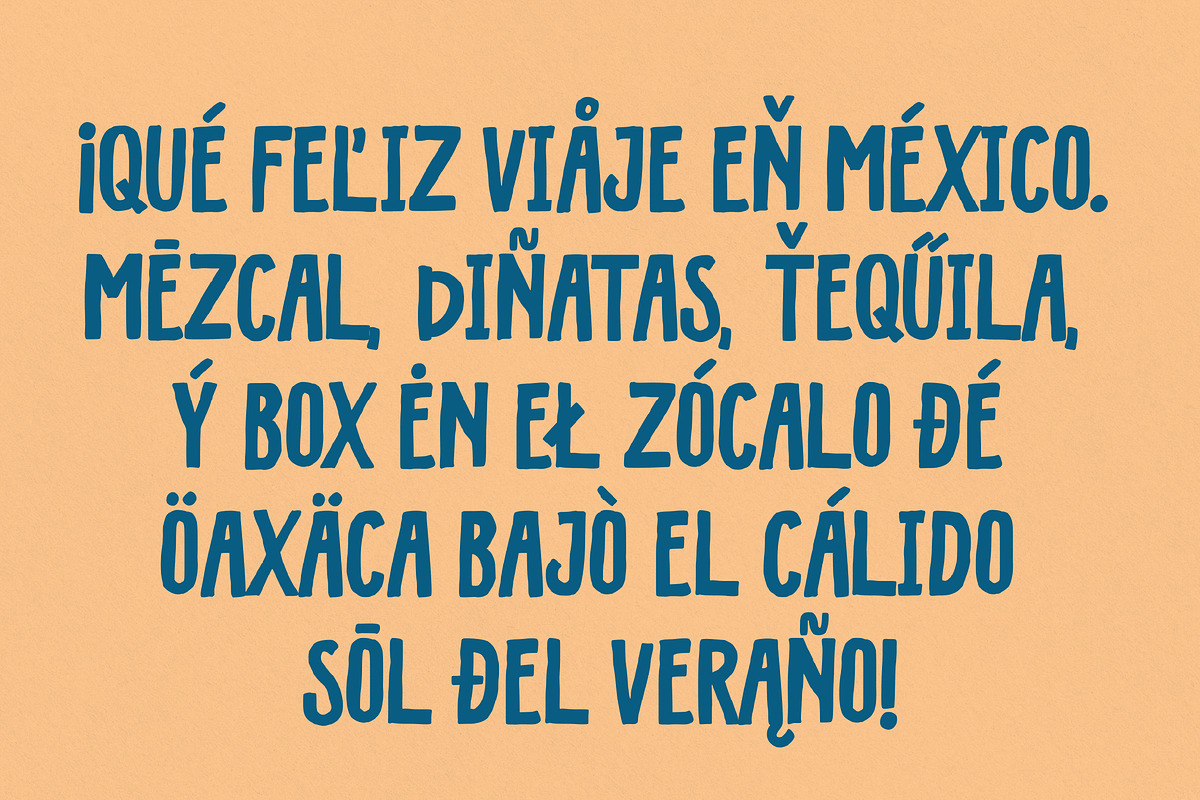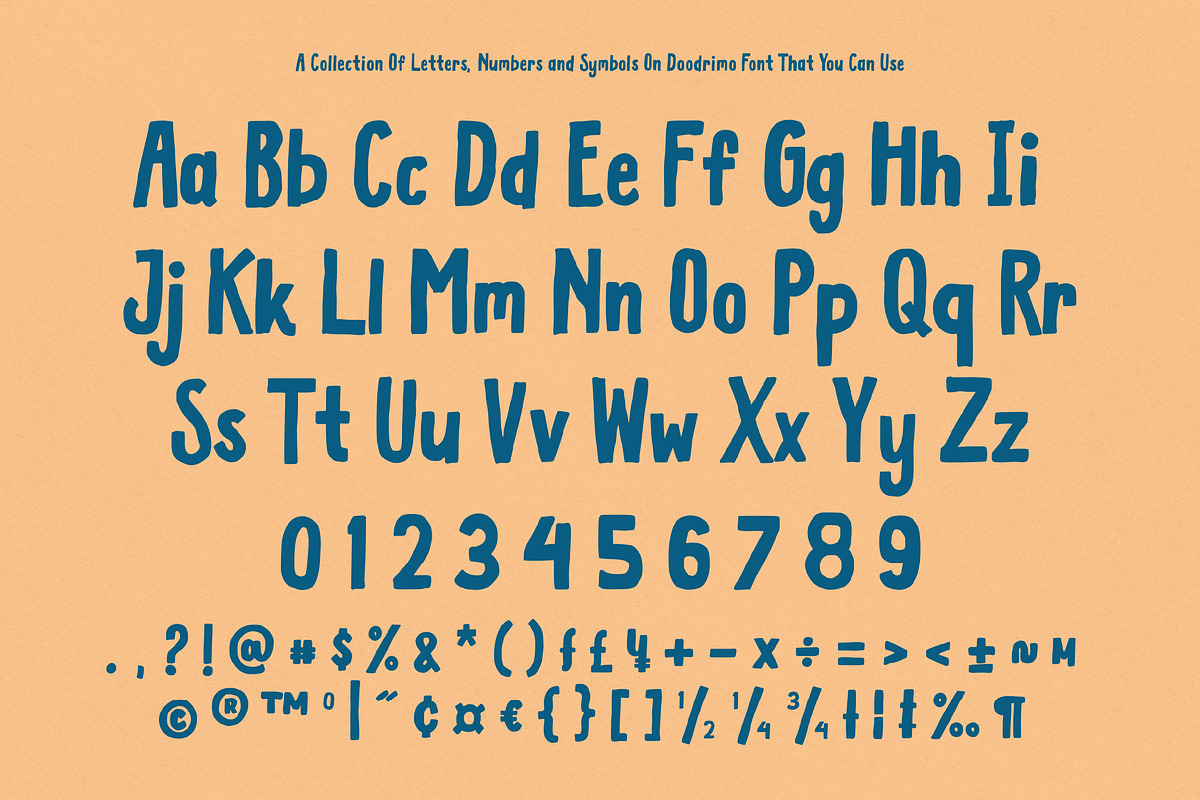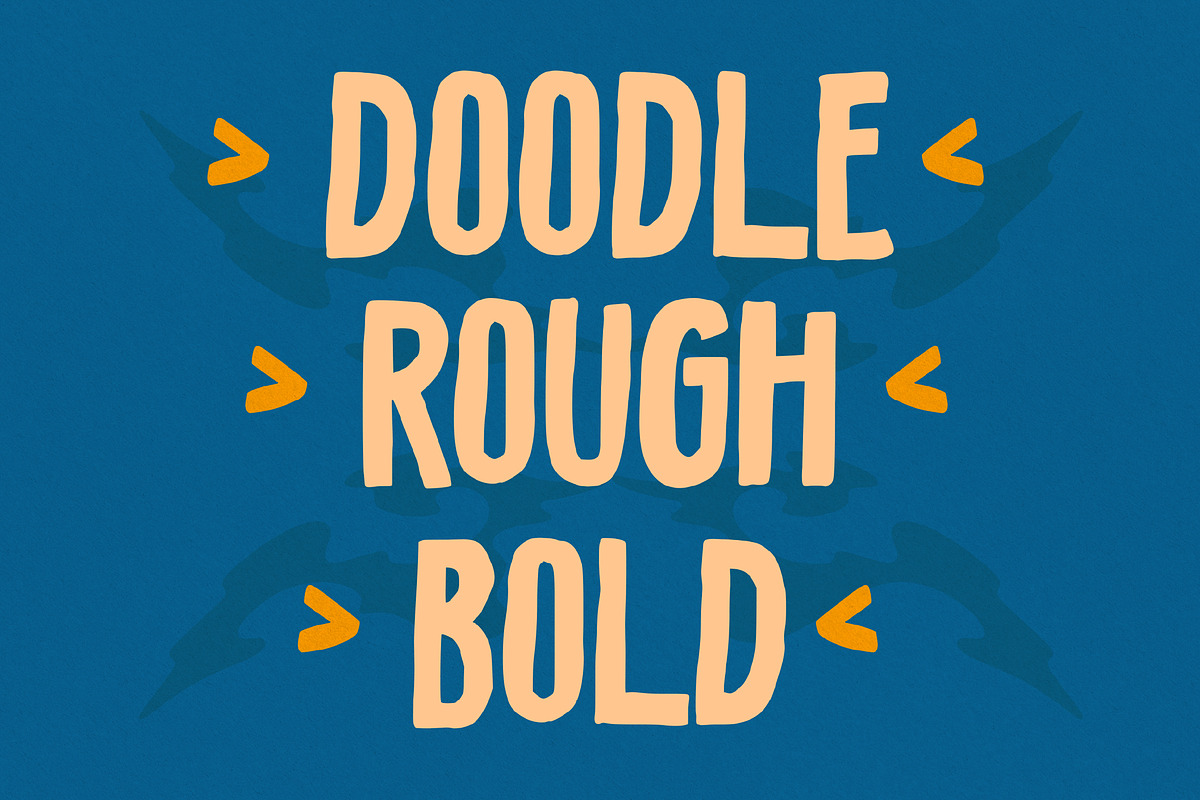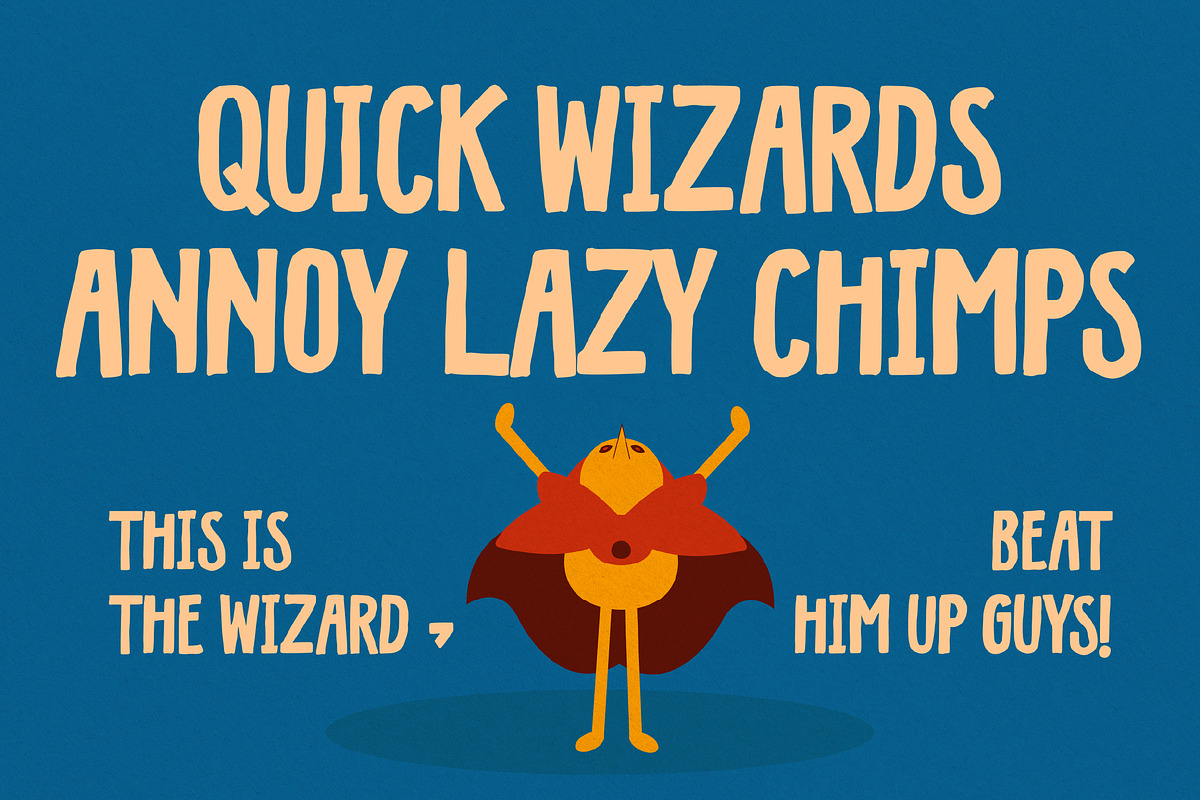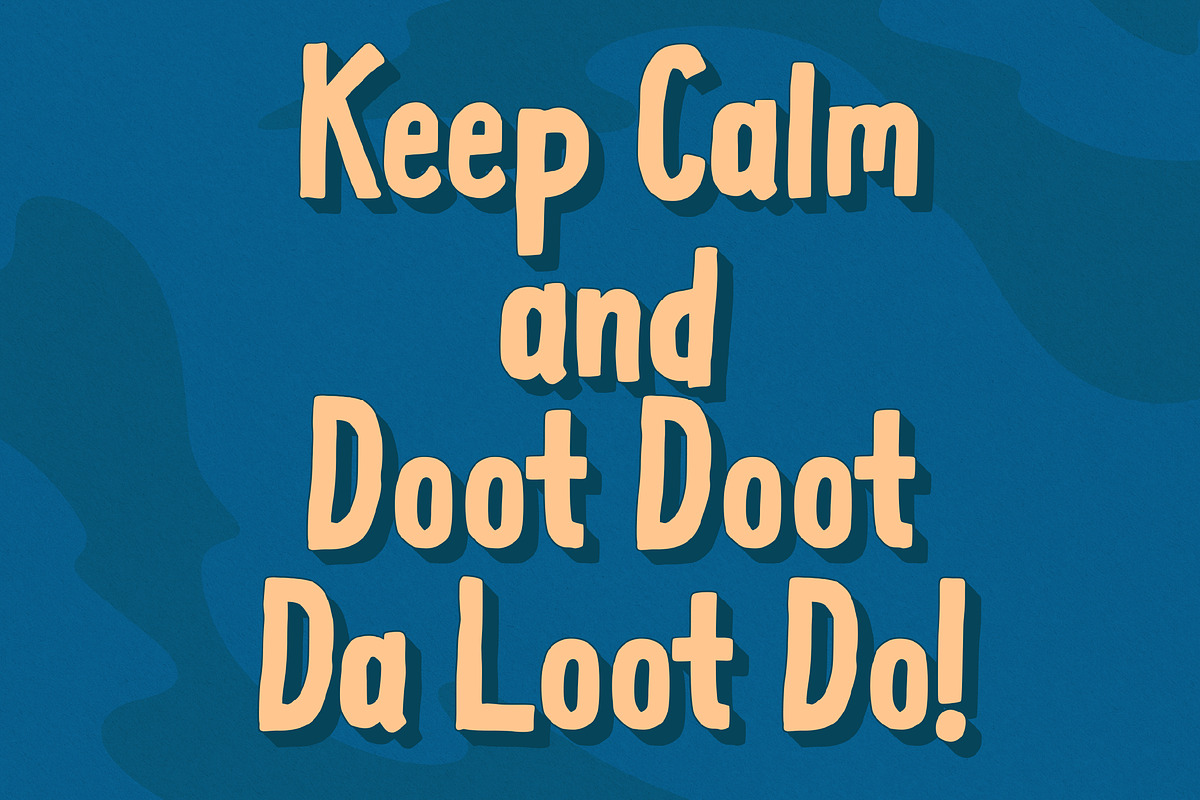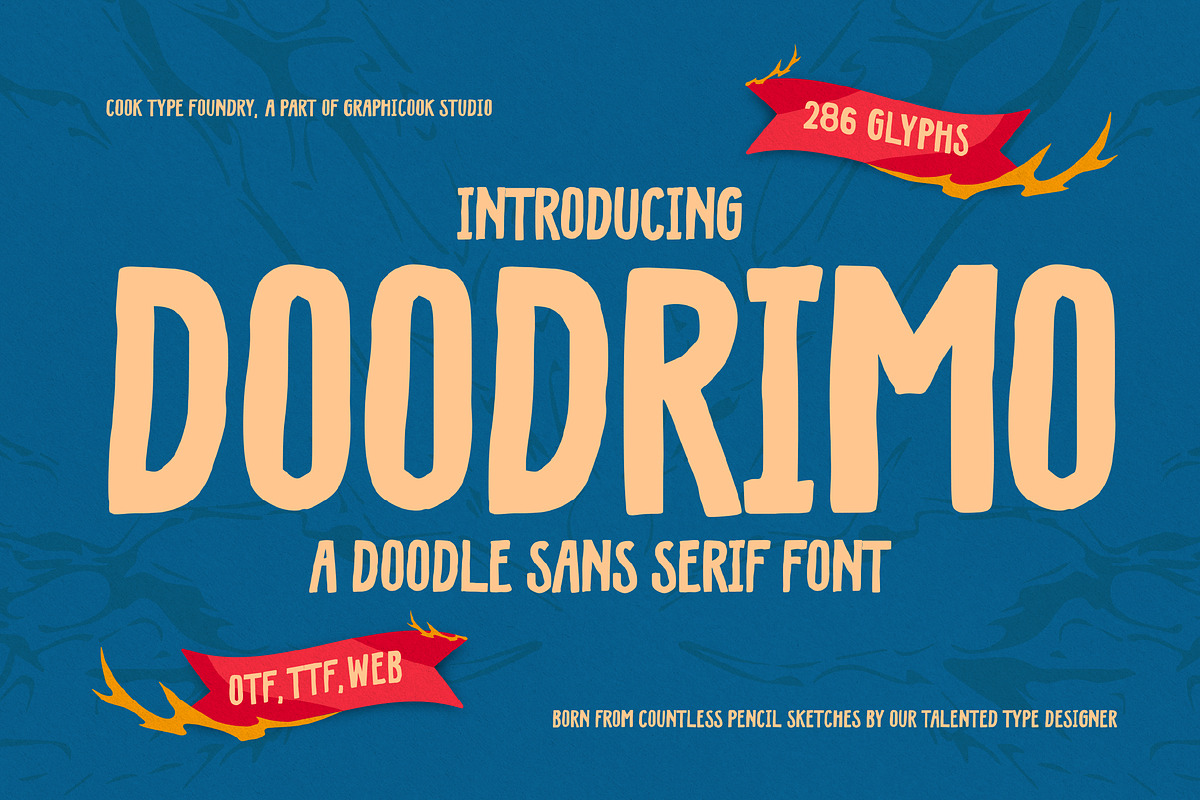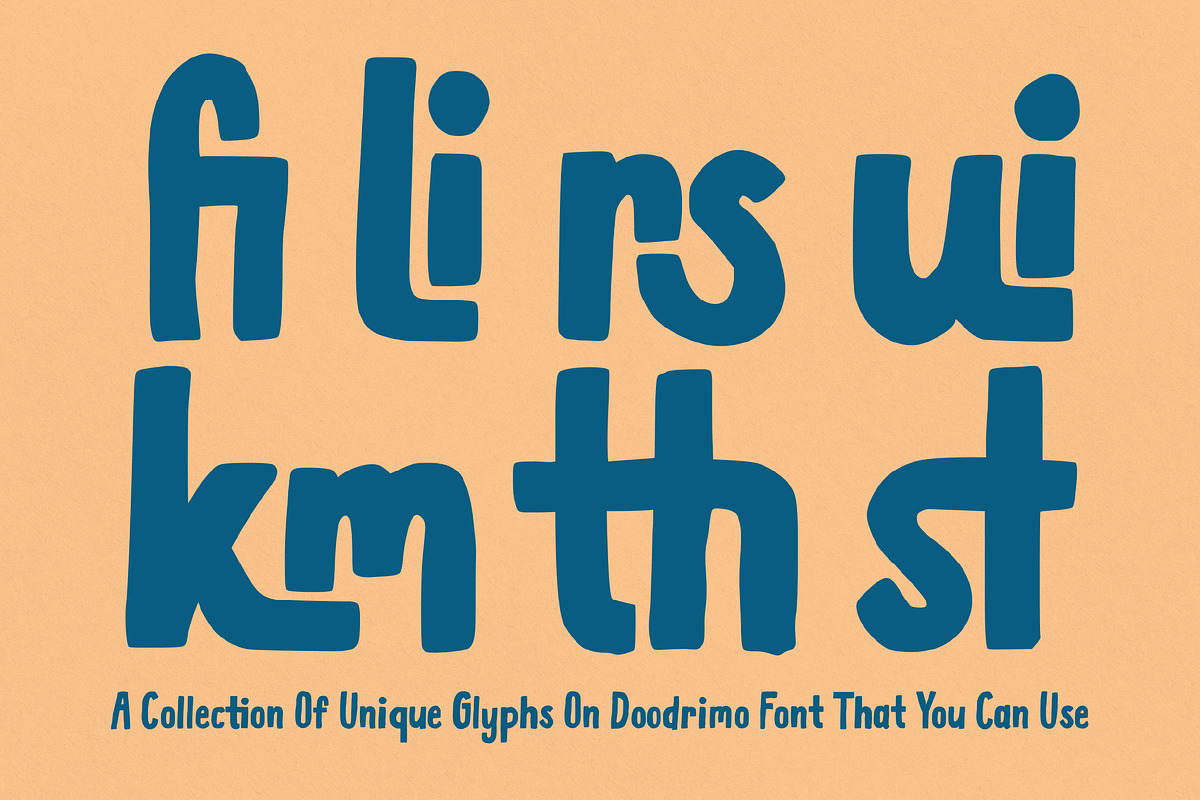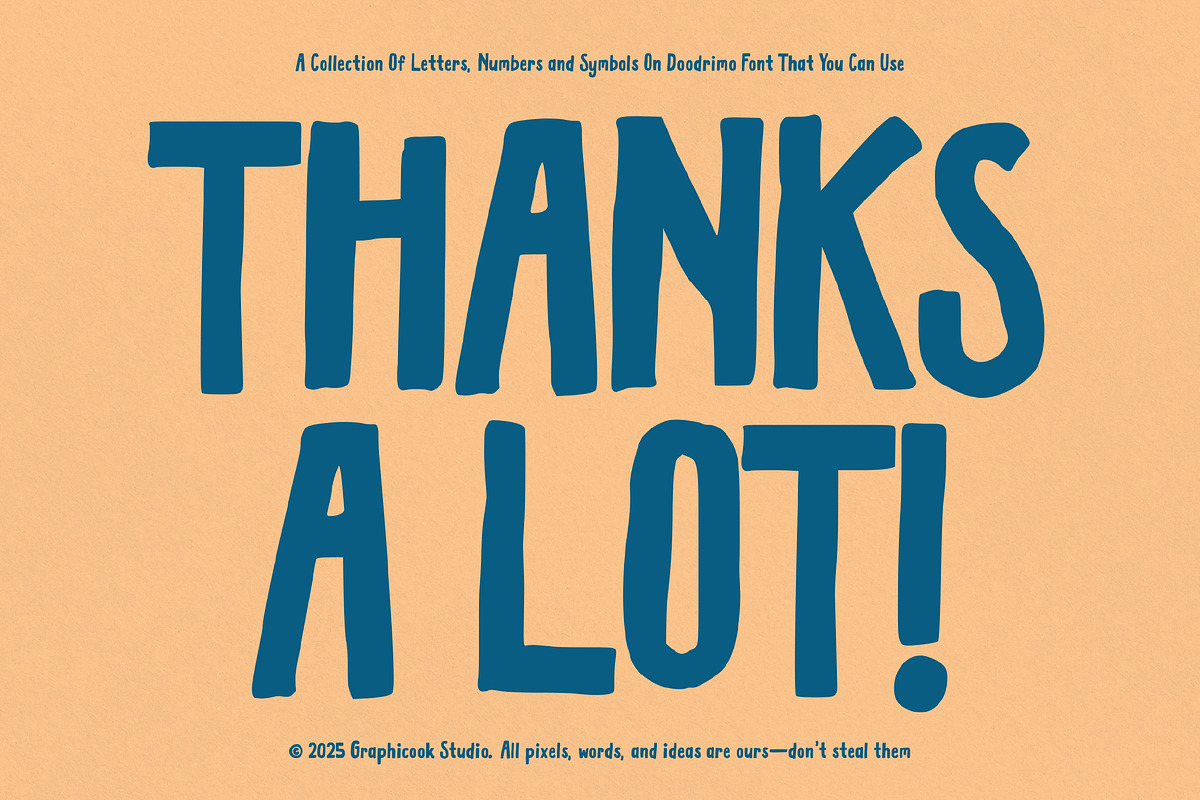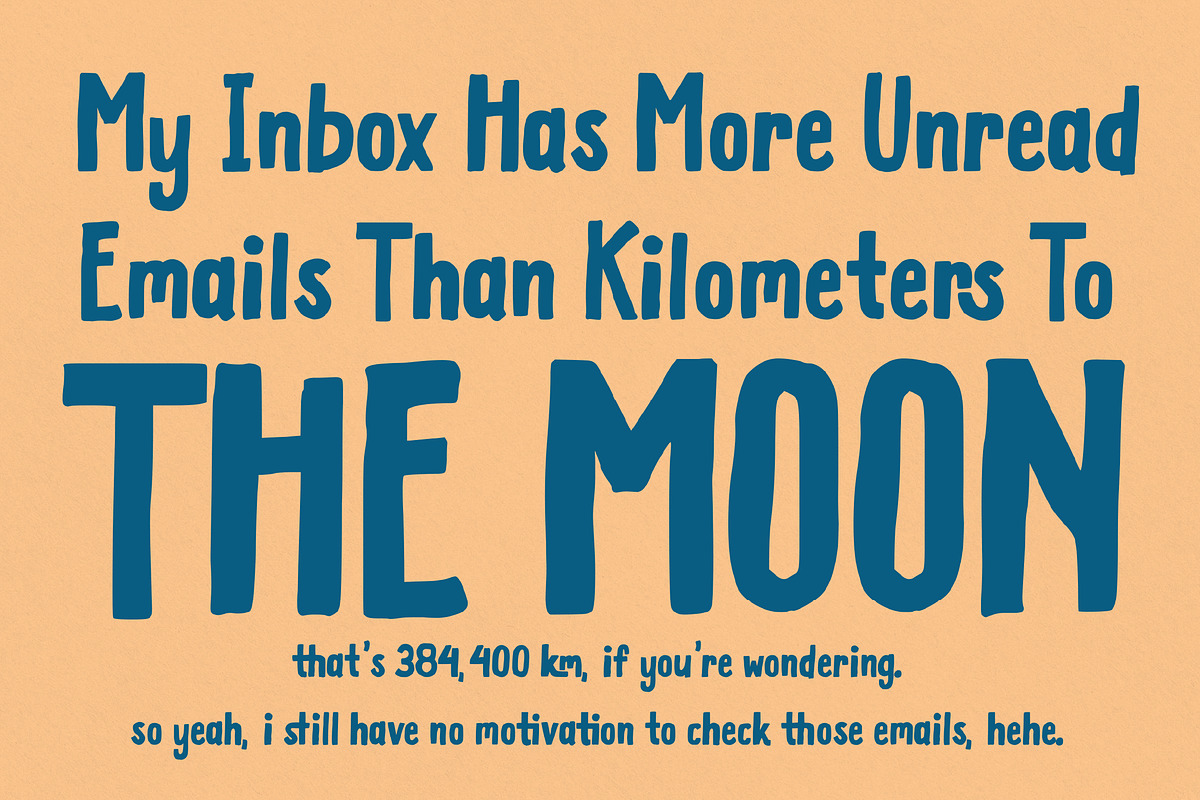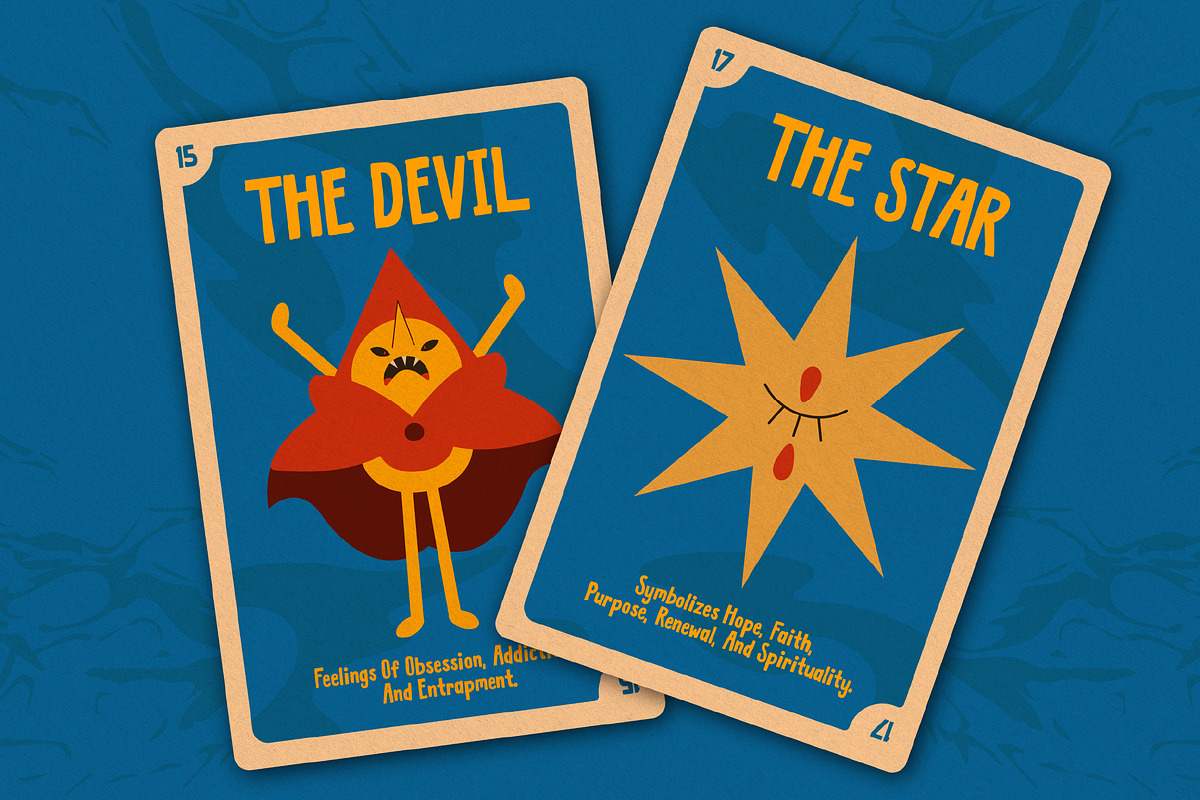
Doodrimo
Doodrimo is a sans-serif font that resembles hand scribbles or doodles, creating a playful and unique vibe. Ideal for fun, cheerful designs that avoid a formal tone.
It is perfect for headlines, logotypes, magazines, packaging, quotes, movies, games, cover albums, book covers, and flyers, it's a perfect solution for creating eye-catching designs that stand out in any context.